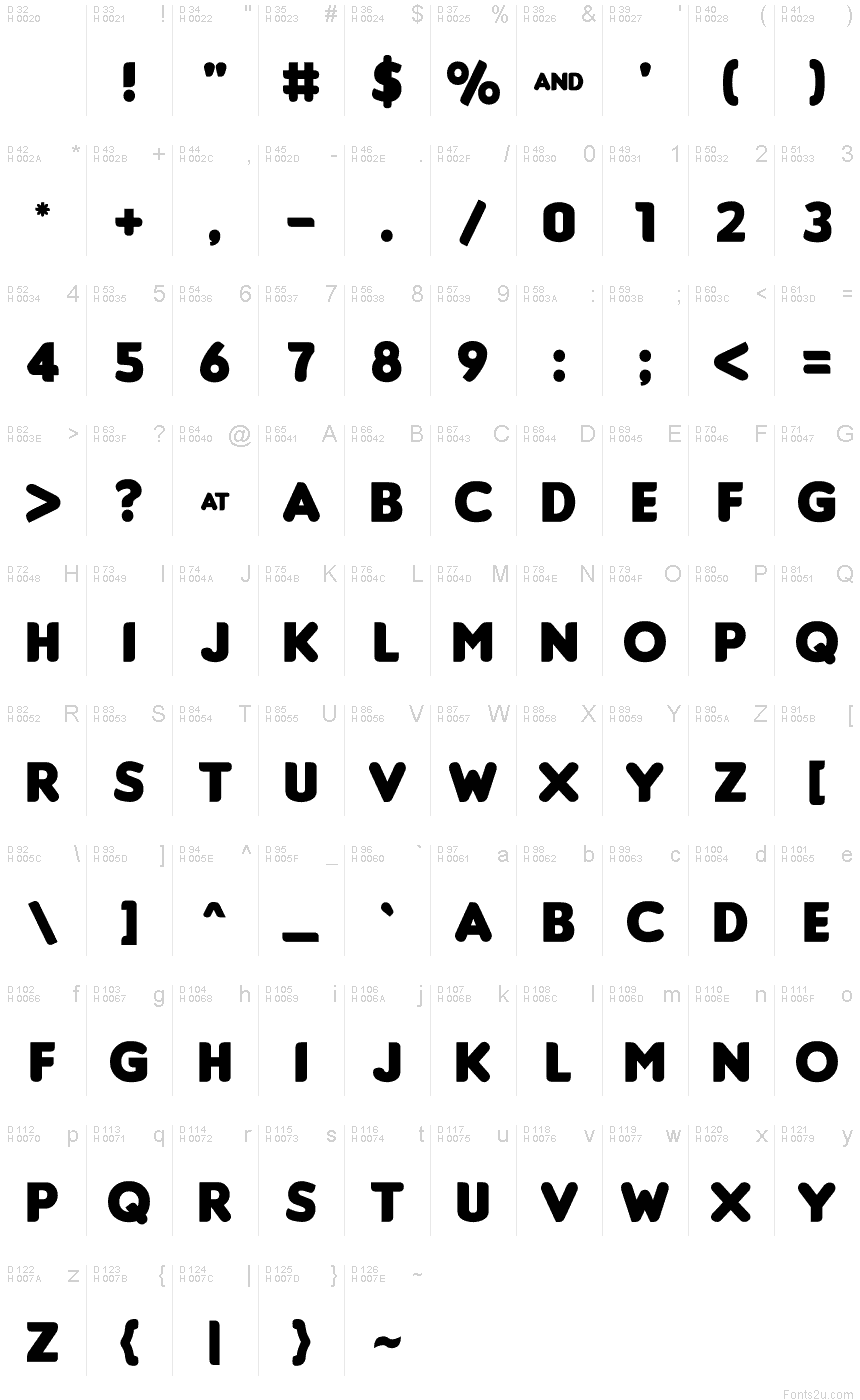
Insaniburger with Cheese
Insaniburger with Cheese font by Adam Nerland is a free modern display typeface that feels straight off a neon-lit burger joint sign. Its chunky, slightly compressed letters and flat tops have a greasy-spoon charm, like ink stamped onto cardboard fry boxes and soda cups. The strokes are thick and confident, giving headlines a loud, satisfying crunch at a glance.
Using Insaniburger with Cheese, you can crank up the flavor on food truck menus, fast-casual restaurant branding, retro snack packaging, event posters, game titles, and bold social graphics. This free font shines at big sizes where its blocky shapes can shout across a room. Pair it with a simple sans serif for menus or captions so Insaniburger with Cheese handles the main headline and the supporting text stays clean and readable.